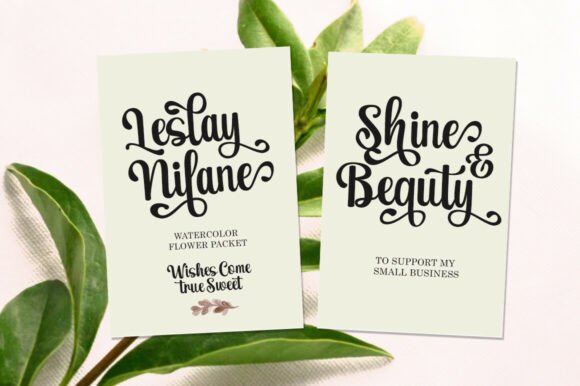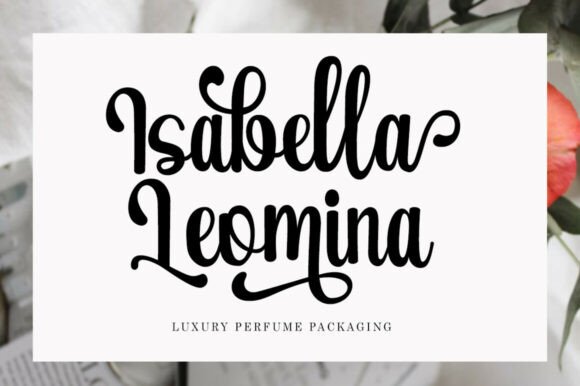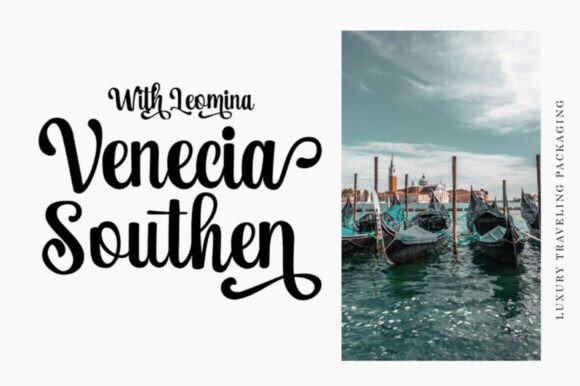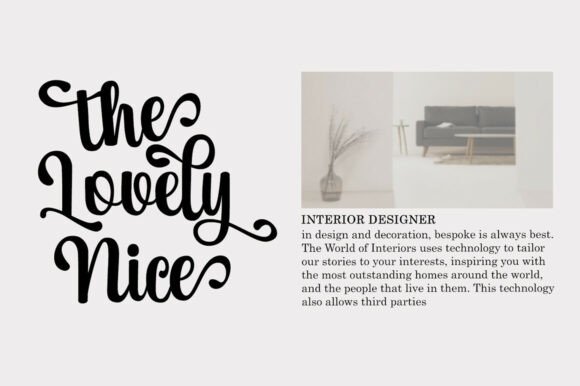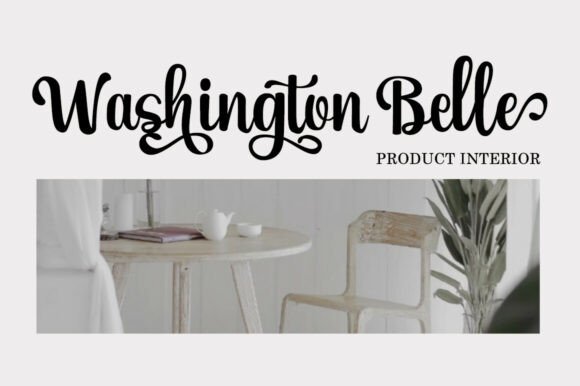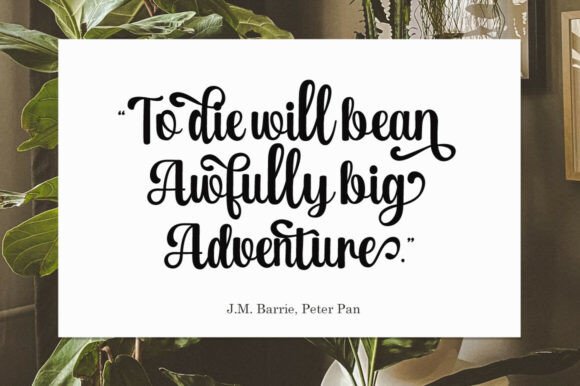
Introducing Deatom Lettering Font: A Beautiful Handwritten Calligraphy Font
Are you a designer or crafter looking for a unique and elegant font to elevate your creative projects? Look no further than Deatom Lettering Font, a stunning handwritten calligraphy font that exudes a feminine and sophisticated touch. In this article, we’ll dive into the features and benefits of Deatom Lettering, and explore how it can add a touch of elegance to your designs.
A Unique and Feminine Touch
Deatom Lettering Font is a beautiful handwritten calligraphy font that boasts a distinctive and feminine charm. Its elegant strokes and curves make it perfect for a wide range of creative projects, from wedding invitations and branding materials to packaging and digital designs. The font’s unique character is sure to capture the attention of your audience and leave a lasting impression.
Available in Regular and Bold Versions
Deatom Lettering Font is available in two versatile versions: regular and bold. This allows you to choose the perfect weight to suit your design needs. Whether you want to make a statement with a bold headline or add a touch of elegance with a regular font, Deatom Lettering has got you covered.
Extensive Collection of Glyphs
One of the standout features of Deatom Lettering Font is its extensive collection of glyphs. Each letter has numerous alternates, which can be easily accessed in applications that support OpenType. This means you can add variety and creativity to your designs, without having to worry about repetitive or monotonous text. With Deatom Lettering, you can create unique and eye-catching designs that showcase your creativity.
OpenType Features
Deatom Lettering Font supports OpenType, which allows you to take advantage of advanced typographic features. With OpenType, you can access a range of features, including:
- Stylistic alternates: Swap out letters for alternate versions, adding variety to your text.
- Ligatures: Combine letters to create beautiful, flowing connections.
- Swashes: Add elegant swashes to your text, perfect for headings and titles.
Deatom Lettering Font is a versatile font that’s perfect for designers and crafters alike. Whether you’re creating:
- Branding materials and logos
- Digital designs and social media graphics
Deatom Lettering Font is the perfect choice. Its elegant and feminine charm makes it suitable for a wide range of creative projects.
In conclusion, Deatom Lettering Font is a beautiful handwritten calligraphy font that’s perfect for designers and crafters looking to add a touch of elegance to their creative projects. With its unique and feminine charm, extensive collection of glyphs, and OpenType features, Deatom Lettering is a versatile font that’s sure to elevate your designs. Whether you’re creating wedding invitations, branding materials, or digital designs, Deatom Lettering Font is the perfect choice.